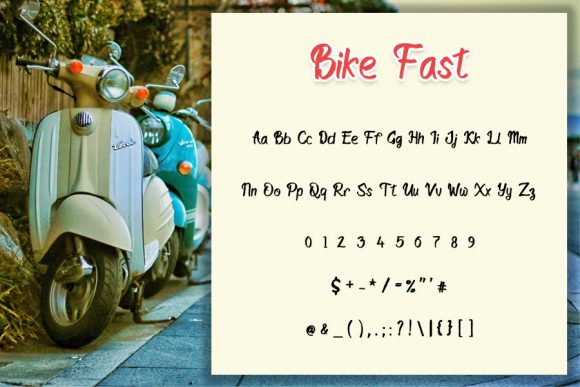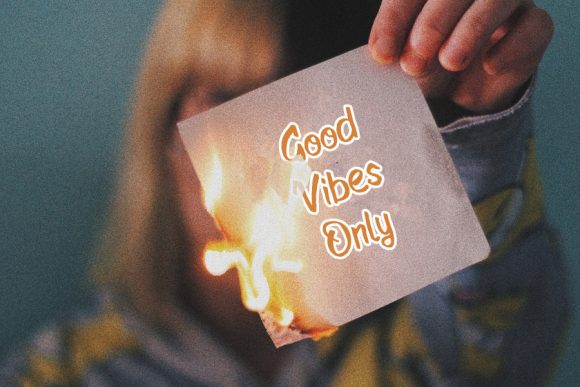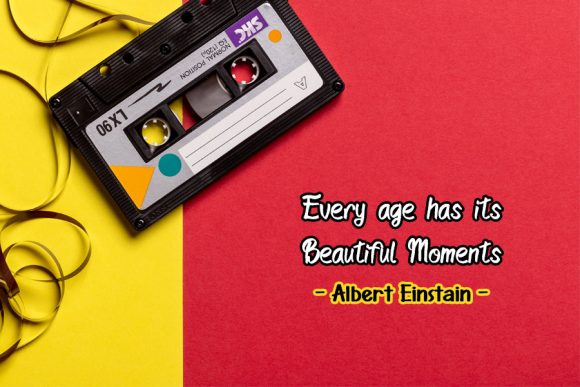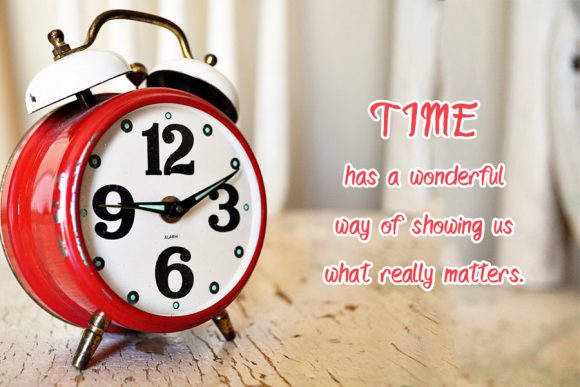
Introduction to Bike Fast Font
Bike Fast is a friendly handwritten font that can be used for all chalkboard quotes or teaching material.
Its authentic handwritten look and feel will add a personal and realistic feel to your designs .